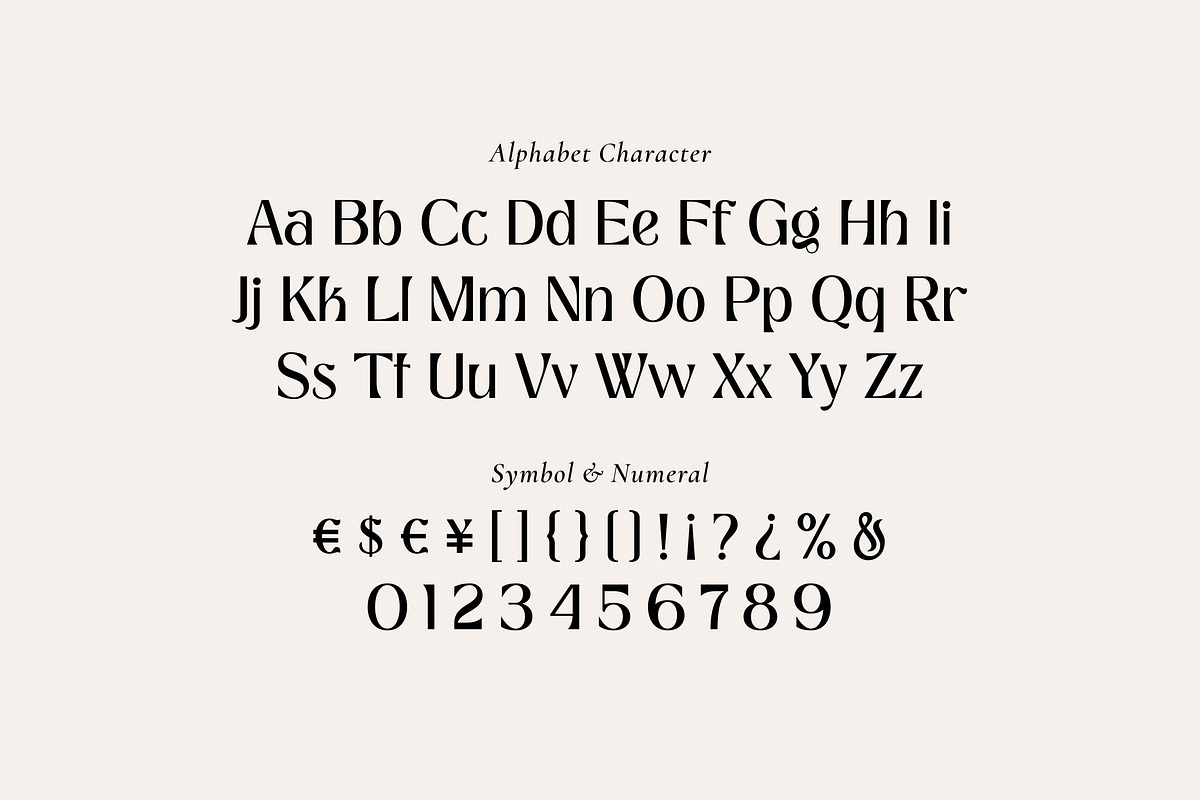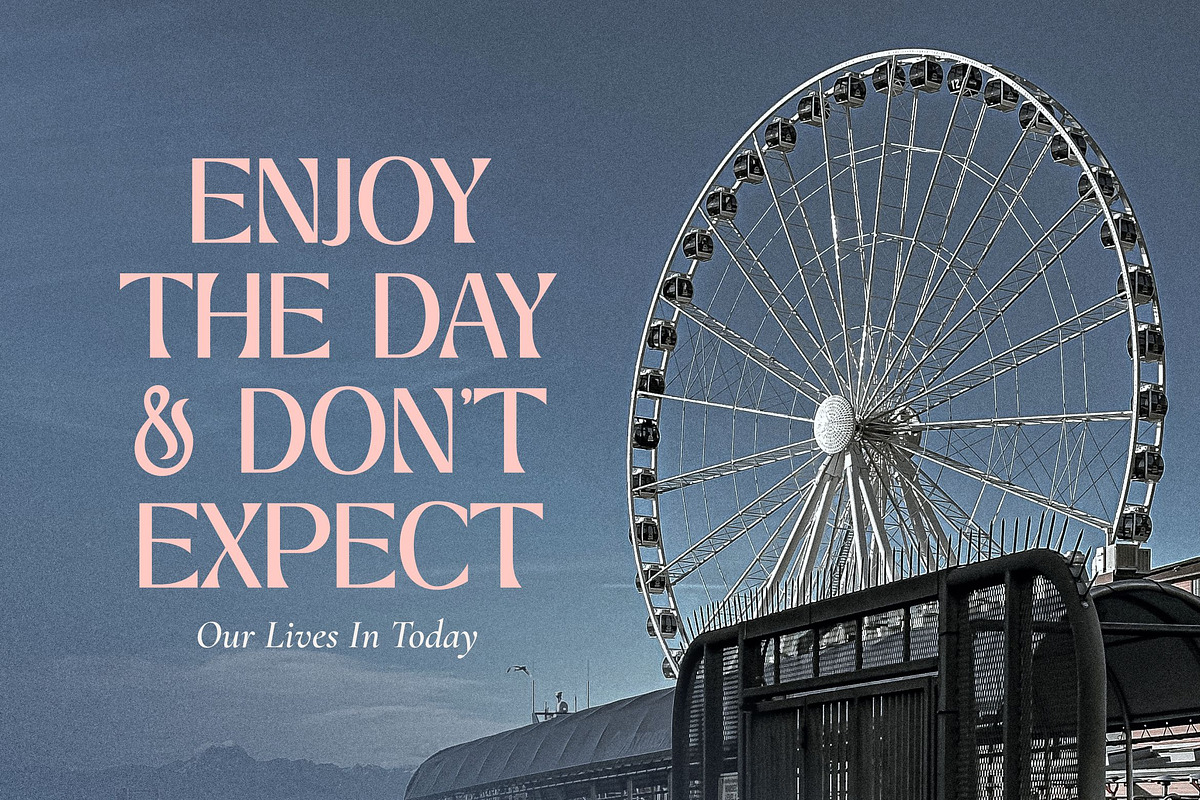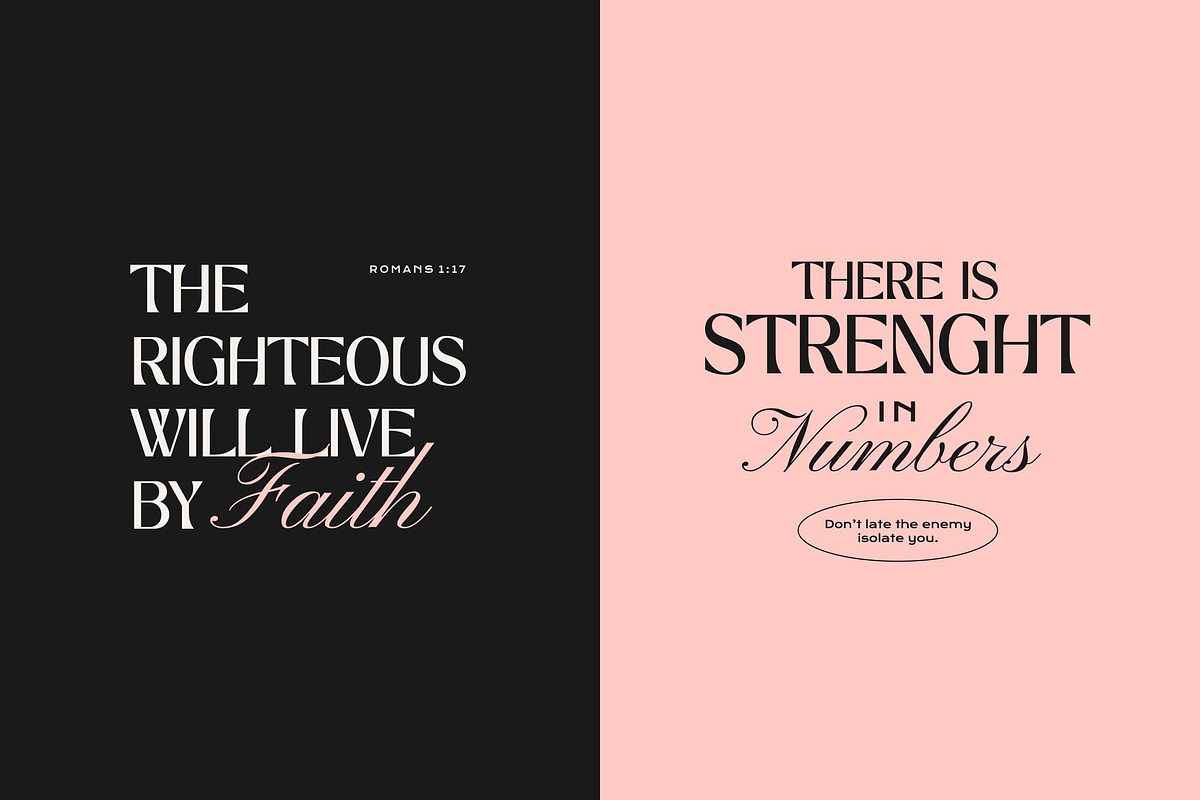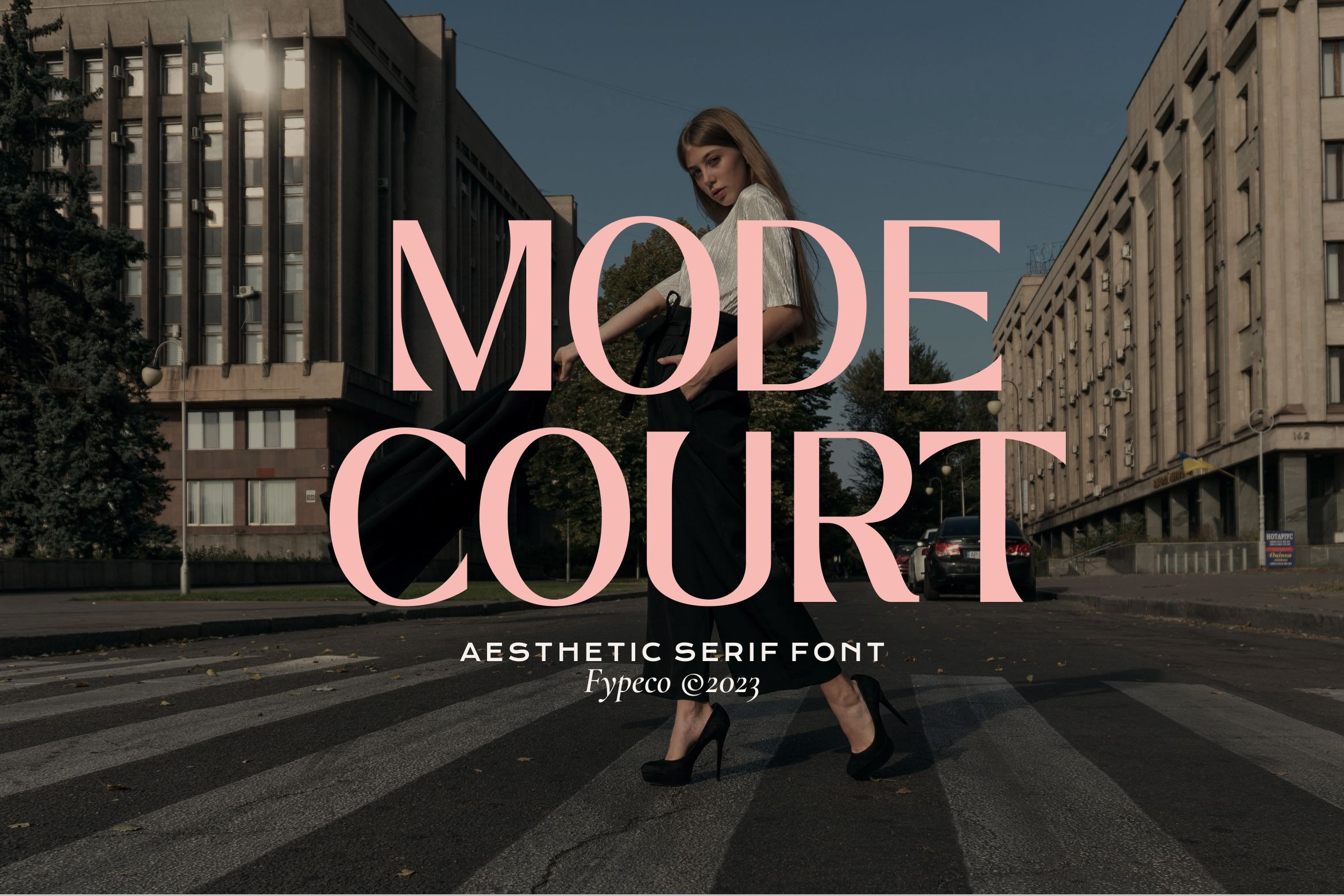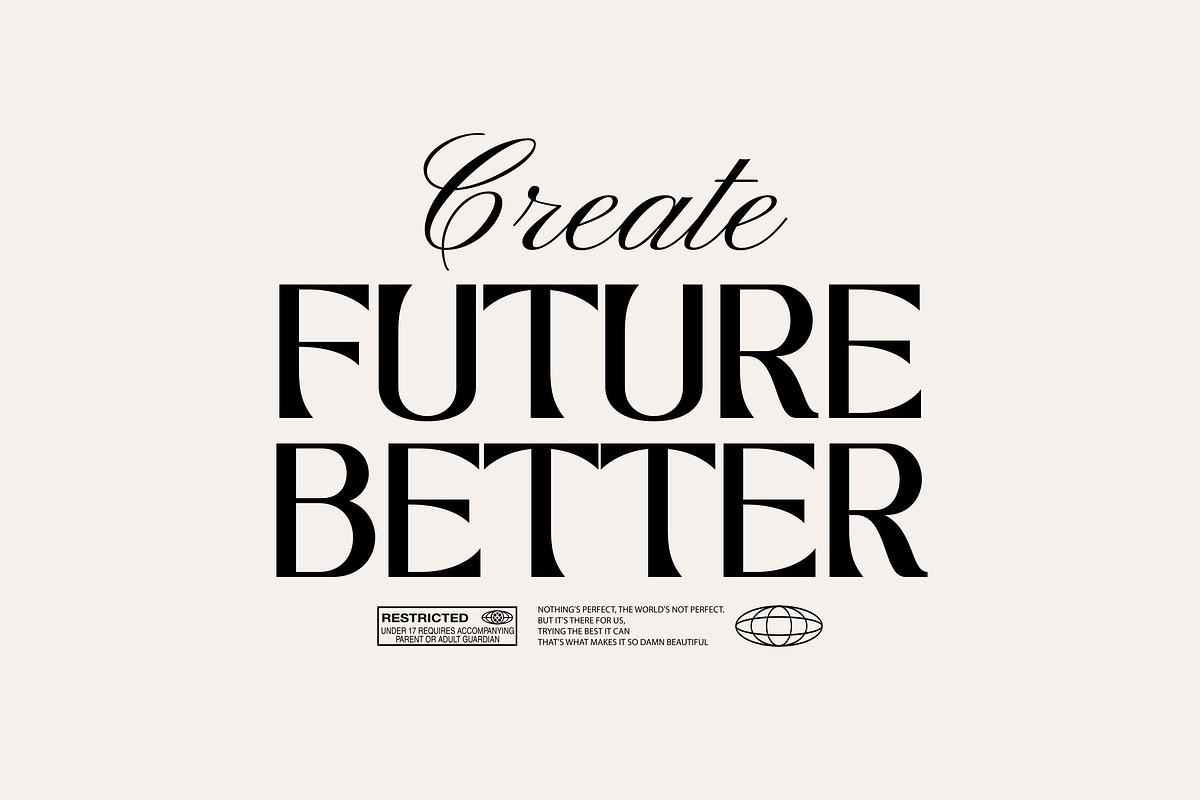
Mode Court - Aesthetic Font
Mode Court is aesthetic serif font. Minimalist and modern typeface great for logos, quotes, branding or editorial design. It is a unique typeface for your individual personality.